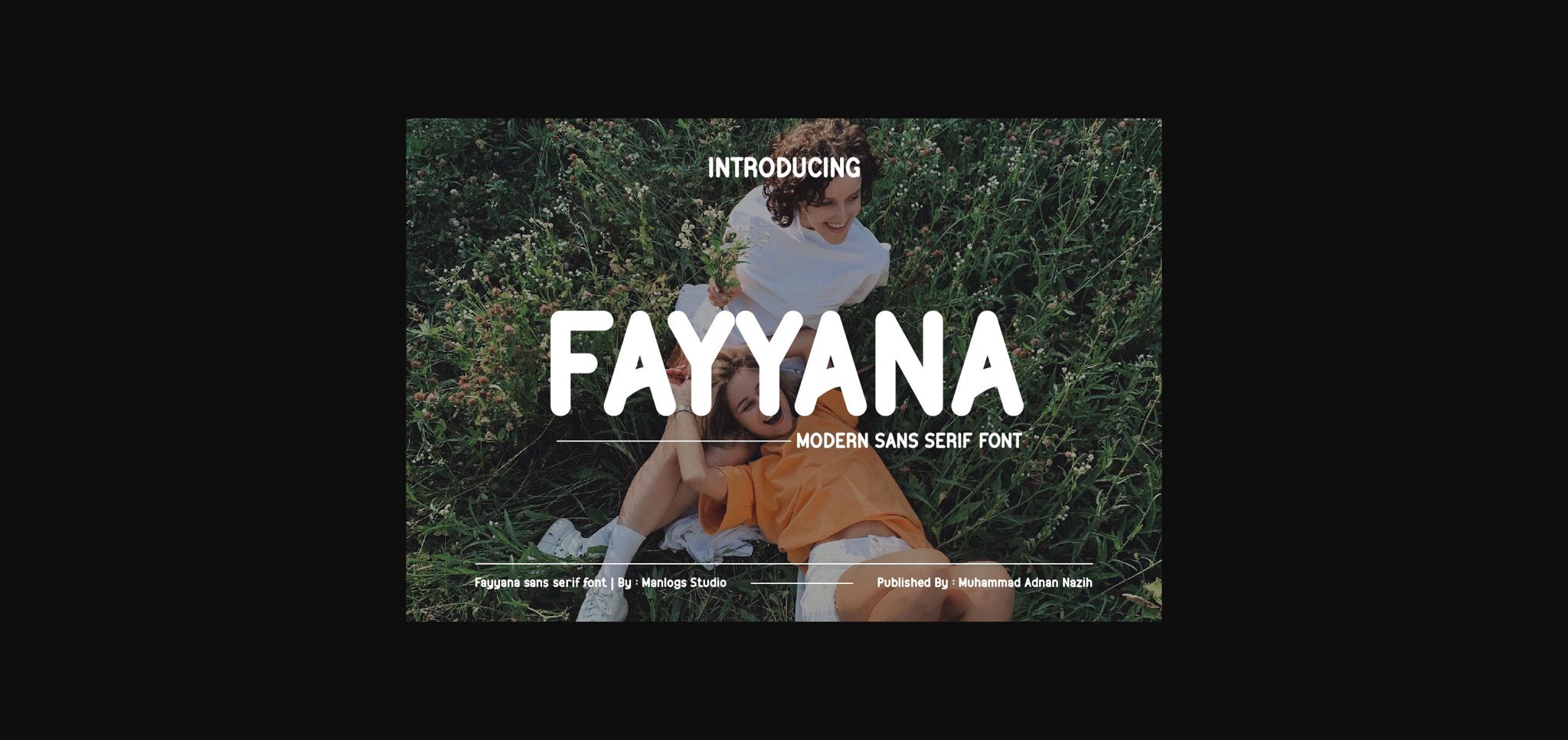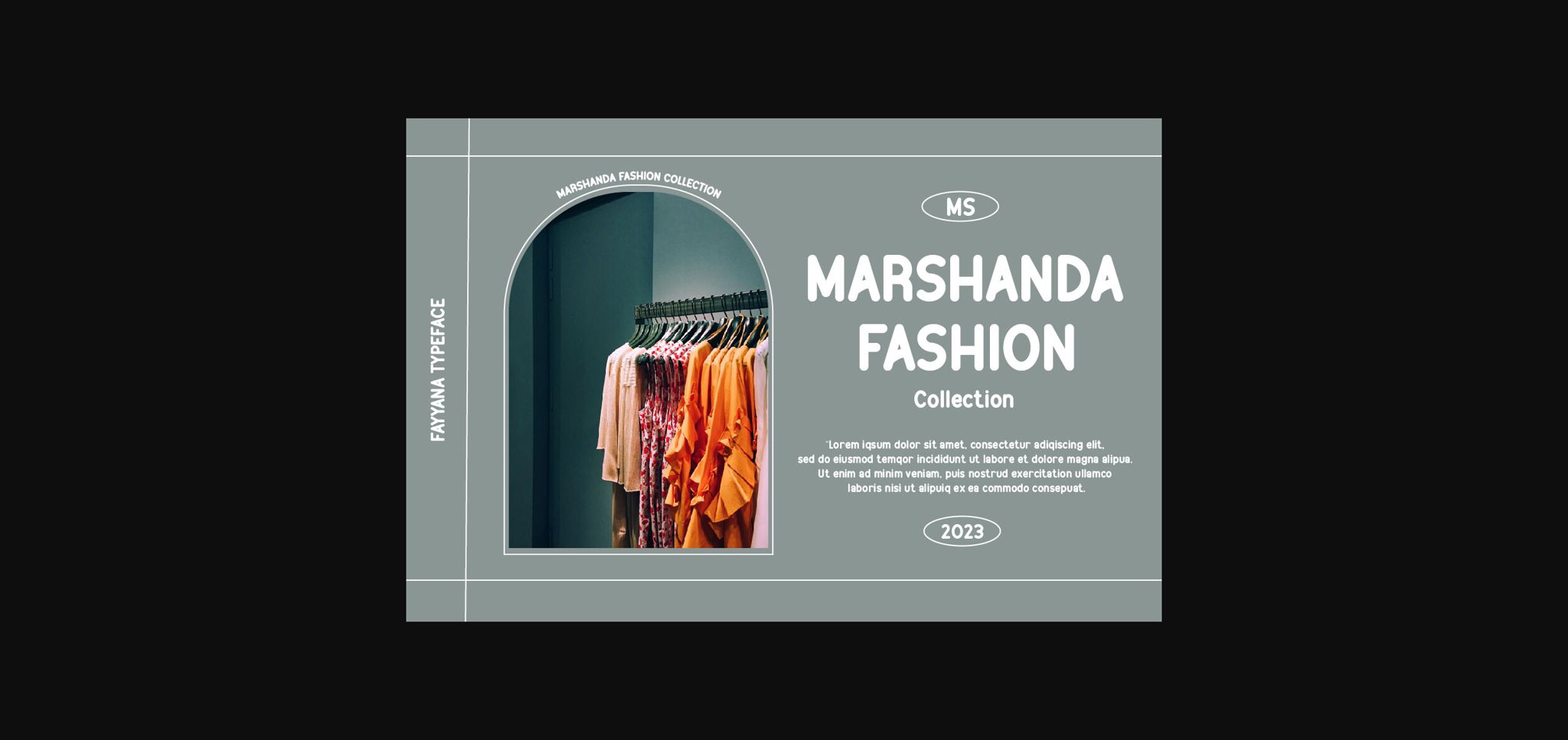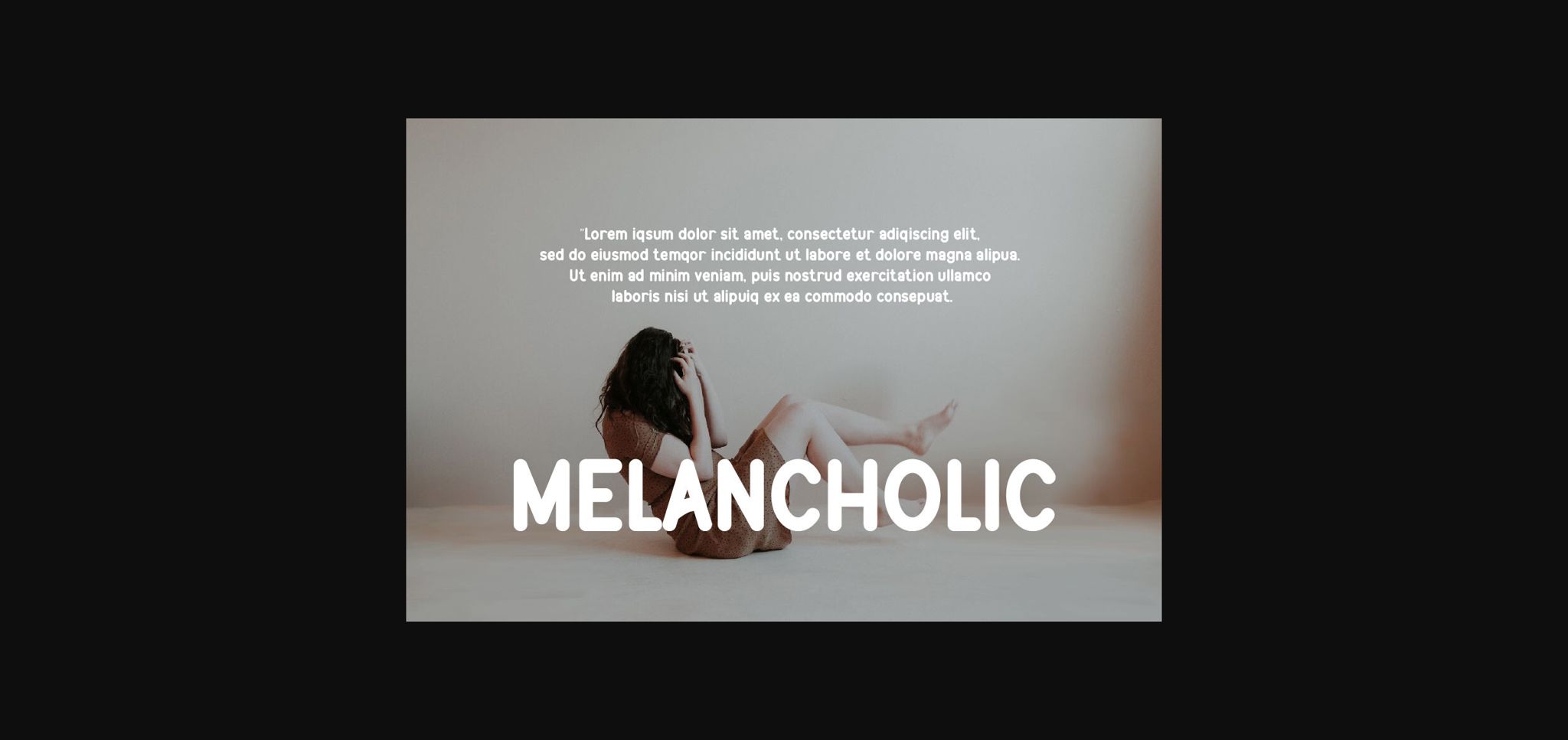
About Fayyana Font
Fayyana is a modern, round-ish sans serif font that brings a playful and friendly vibe to your designs. With its soft curves and balanced letterforms, it adds a touch of charm and approachability. Perfect for headlines, logos, fashion, wedding, beauty, cosmetics, coverbook, magazine, fashion ideas, vintage design, architecture, interior and branding, Fayyana captures attention and invites engagement. Its versatility makes it suitable for a variety of creative projects, adding a touch of liveliness and character.